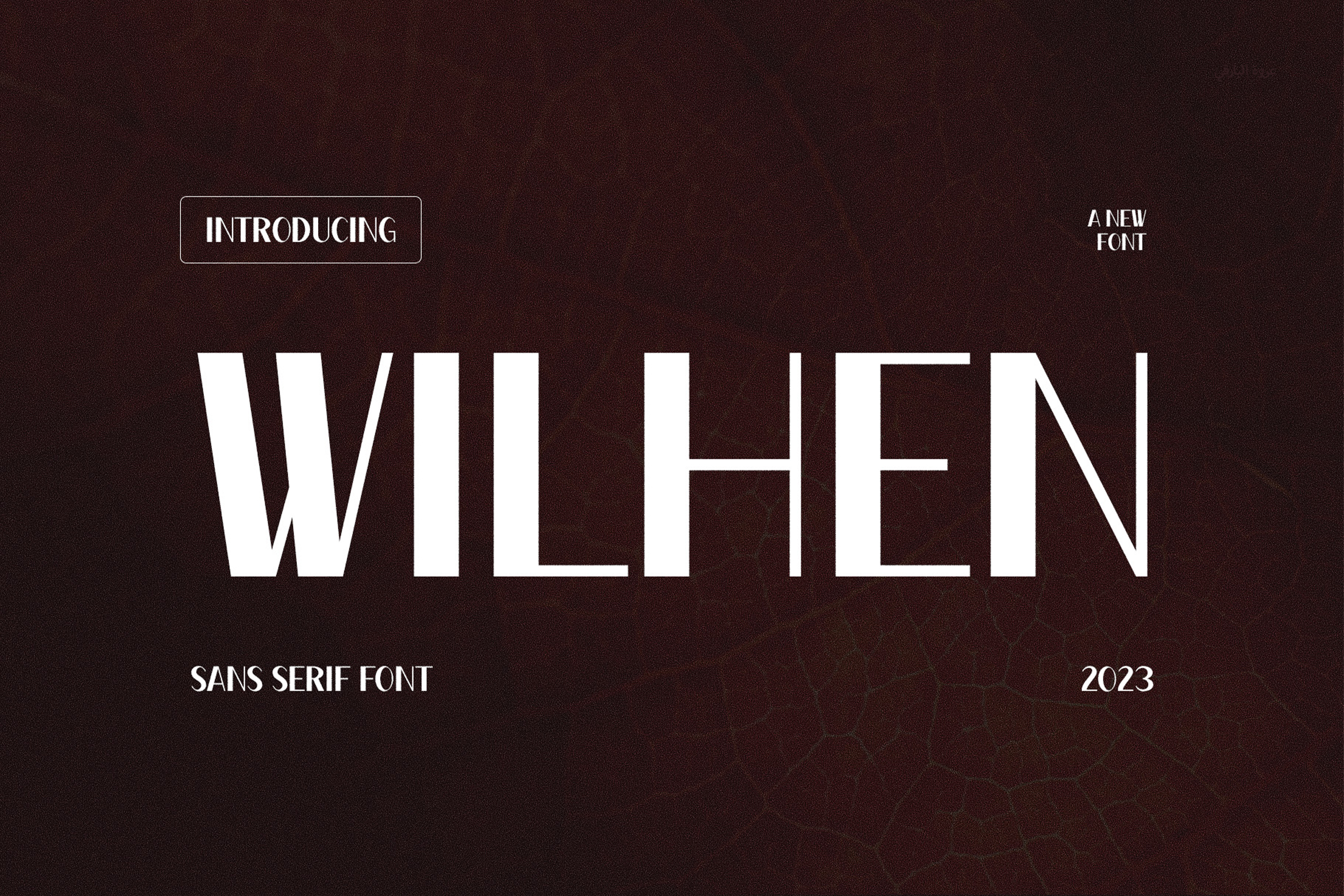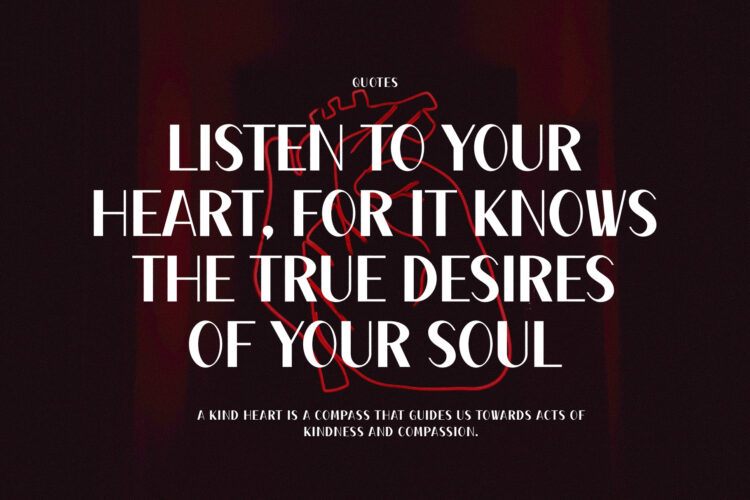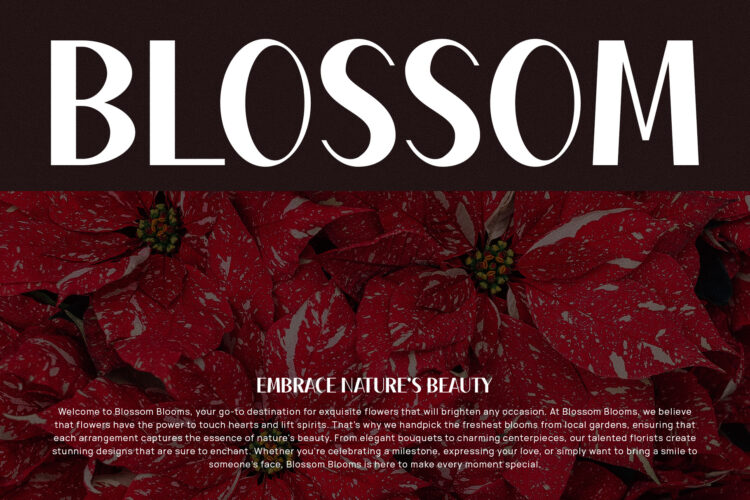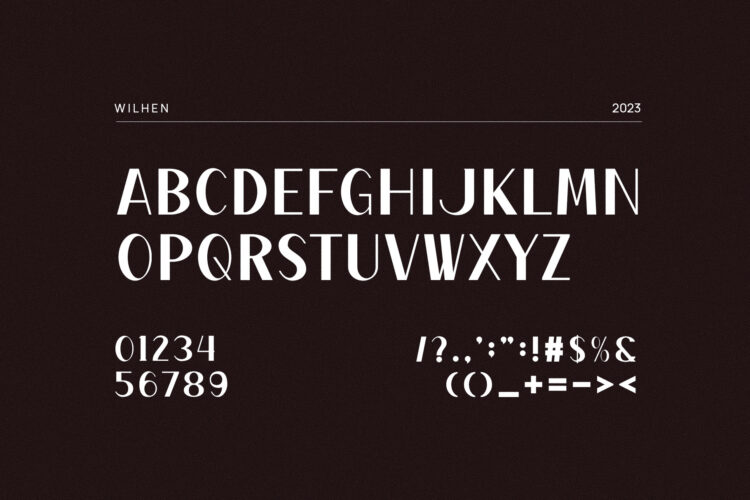
Introducing our new Wilhen, modern sans serif font with elegant style this is perfect for branding, logos, invitation, magazines, product packaging and more.
Wilhen – Modern Sans Serif